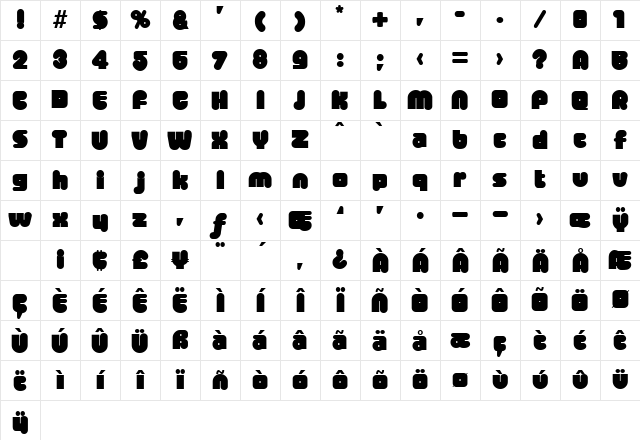
Complete Bigbrother Regular glyph index. Displaying only characters natively supported by Bigbrother Regular font.
Bigbrother is a composed and adaptable typeface that performs quietly and consistently across a wide range of design contexts.